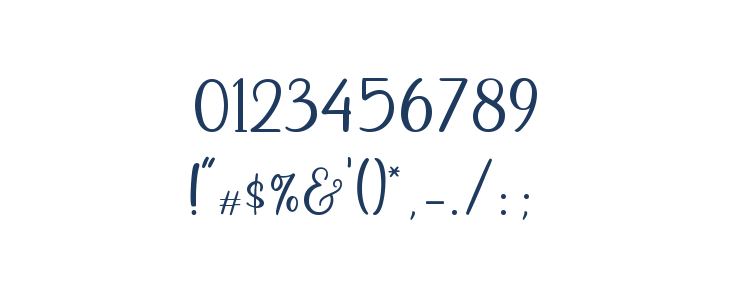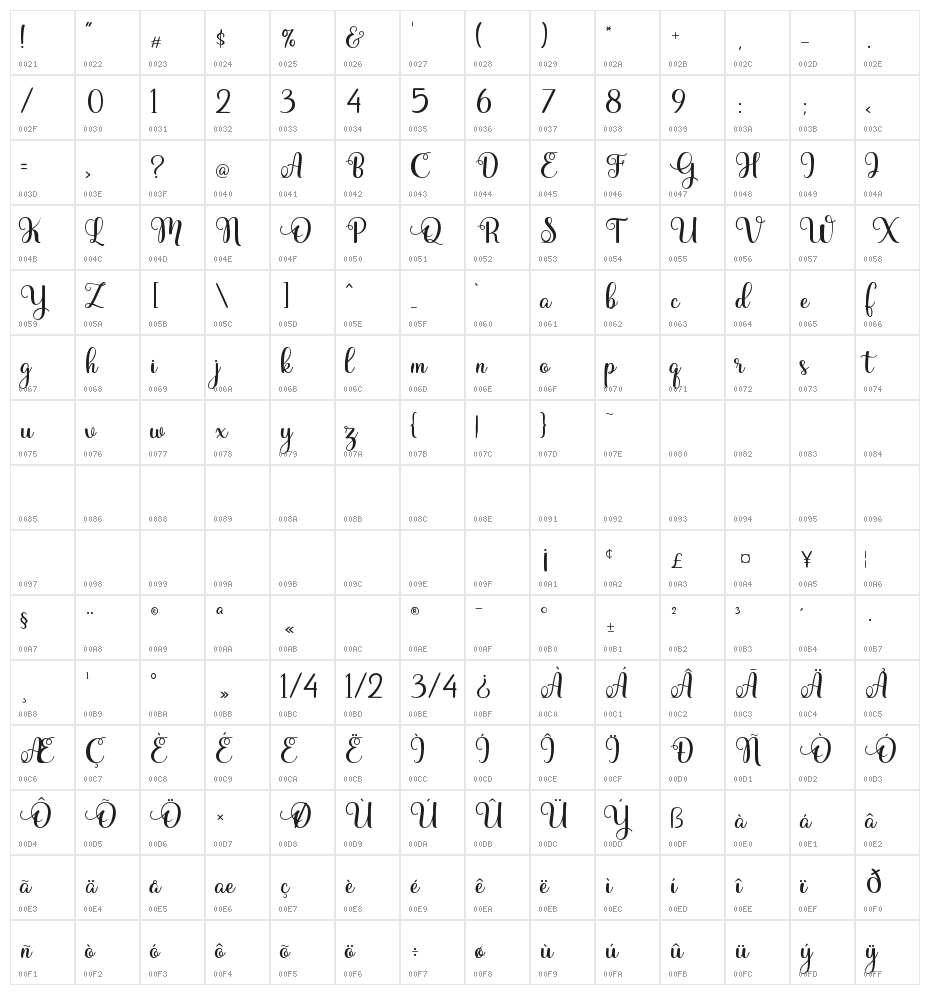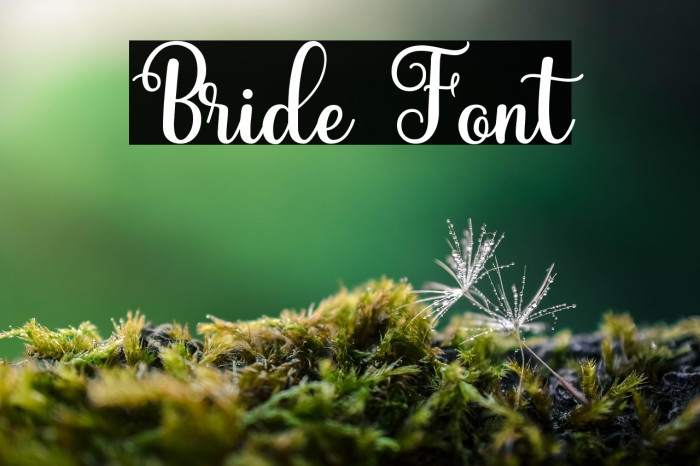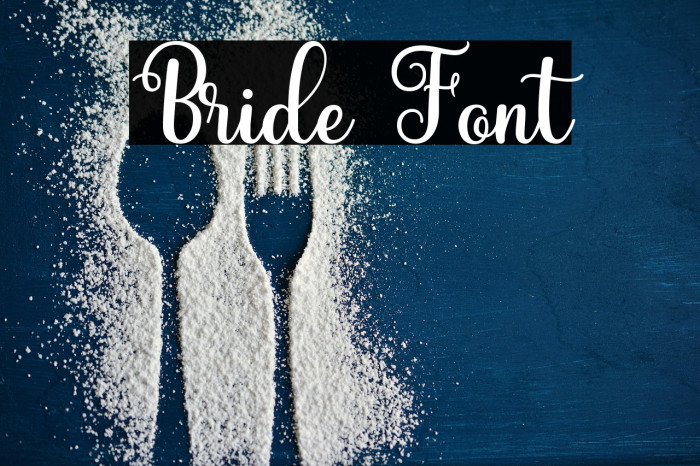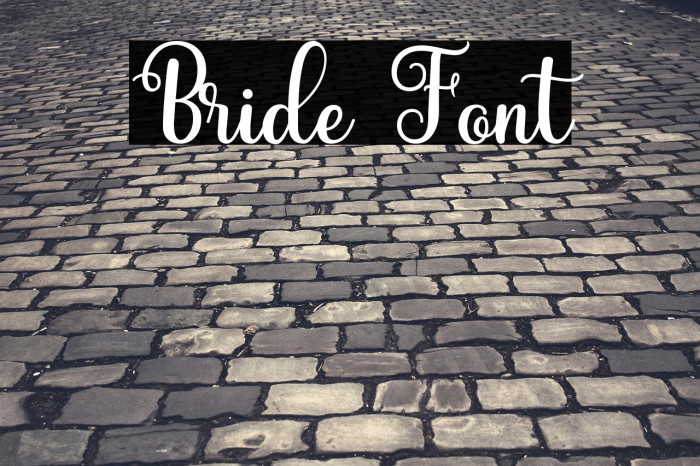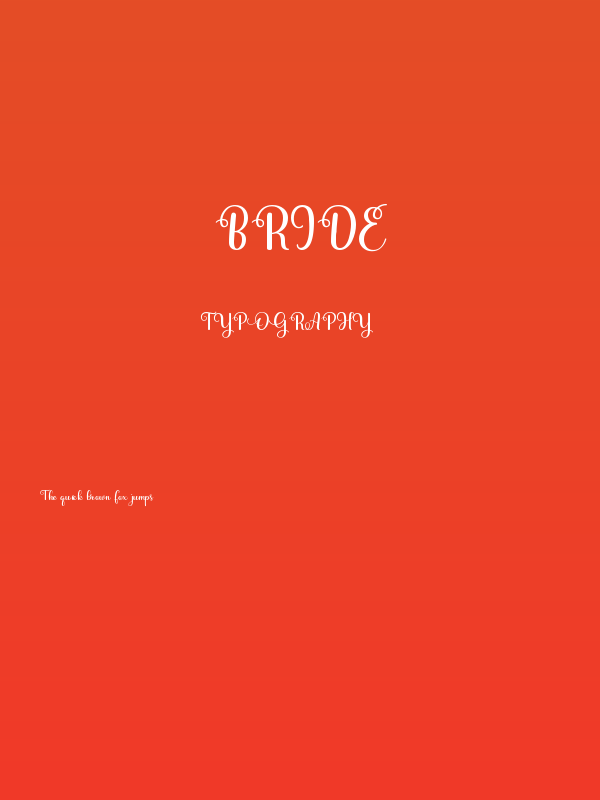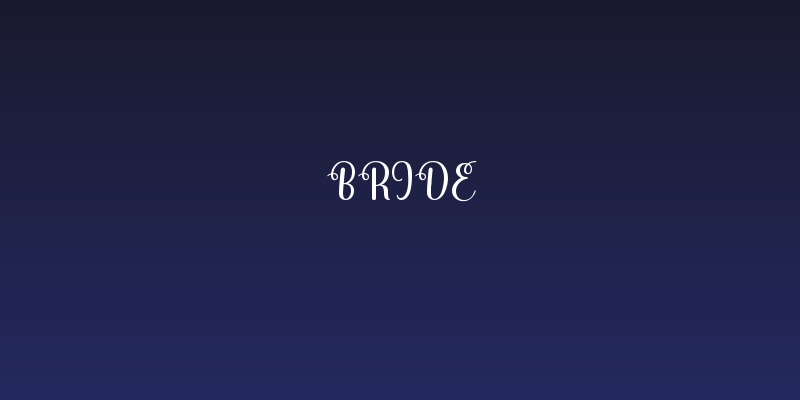
Bride Font
Bride Description
This font exudes elegance and sophistication with its flowing, cursive style. The uppercase letters are adorned with intricate loops and swirls, giving them a decorative flair that is both eye-catching and graceful. The lowercase letters maintain a consistent cursive flow, complementing the uppercase with a slightly more understated design. The numerals are clear and legible, yet they retain a touch of the font's overall elegance. Special characters are designed with the same attention to detail, ensuring they blend seamlessly with the rest of the typeface. This font is perfect for projects that require a touch of class and refinement.
| Overall Style | Elegant |
| Use Case | Headlines, Invitations, Logos |
| Proposed Projects | Ideal for wedding invitations, elegant branding, greeting cards, and upscale packaging. |